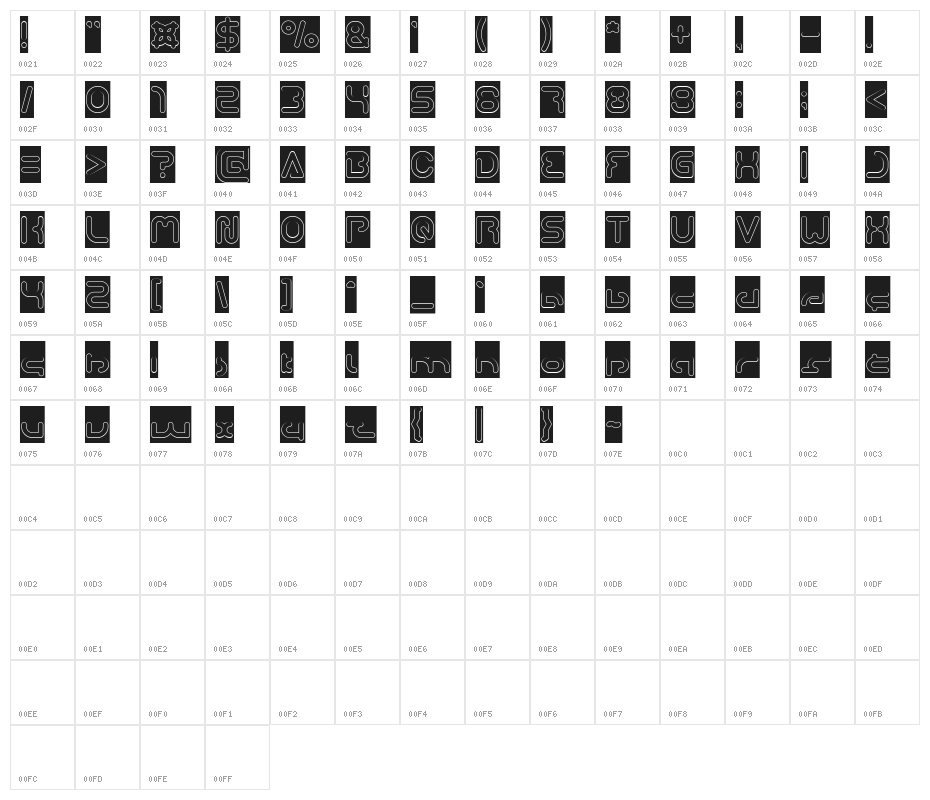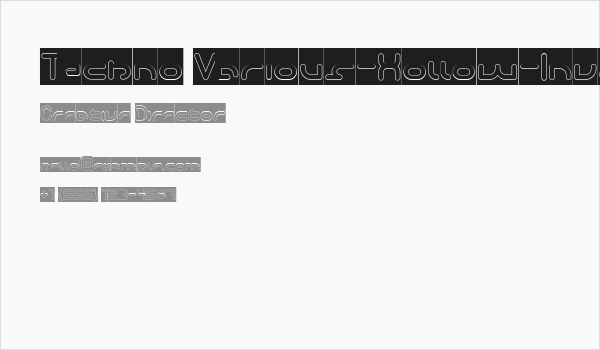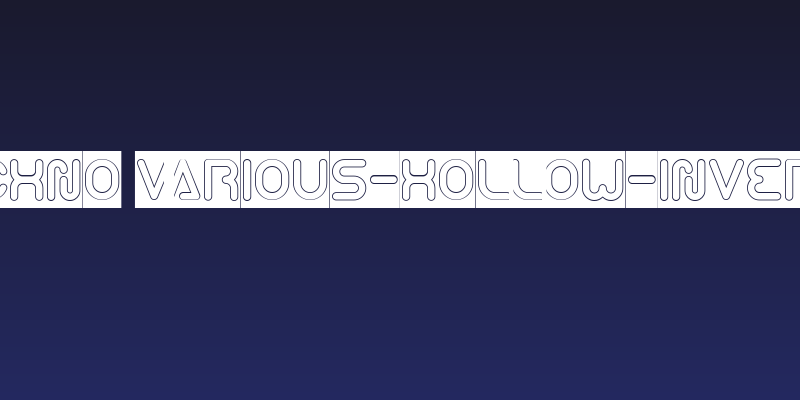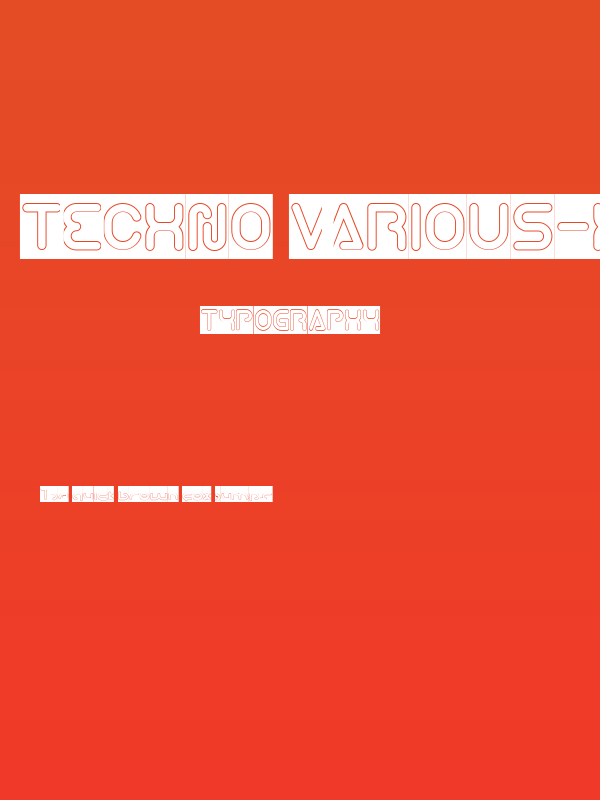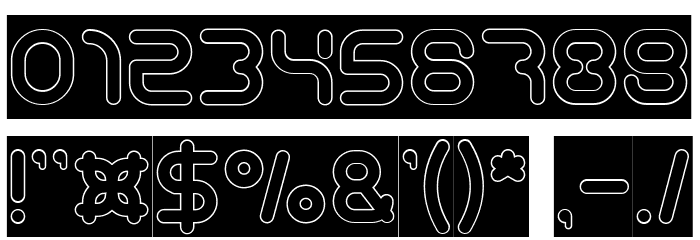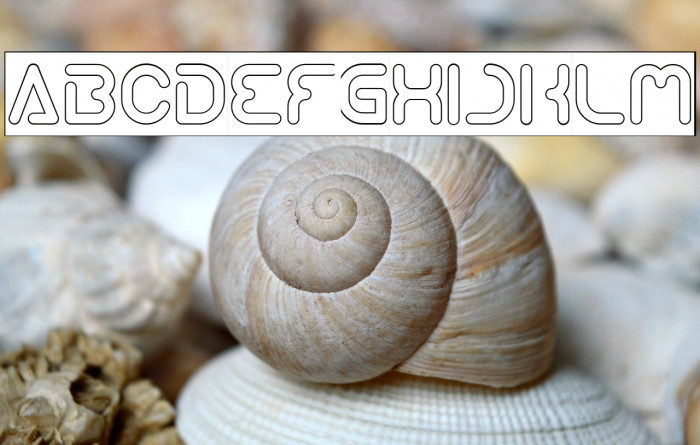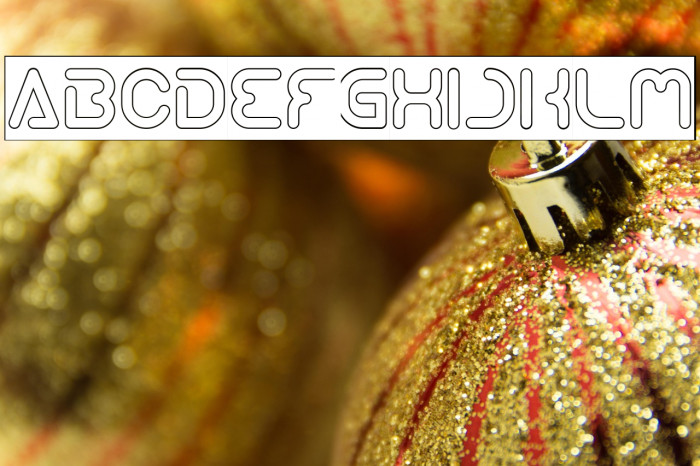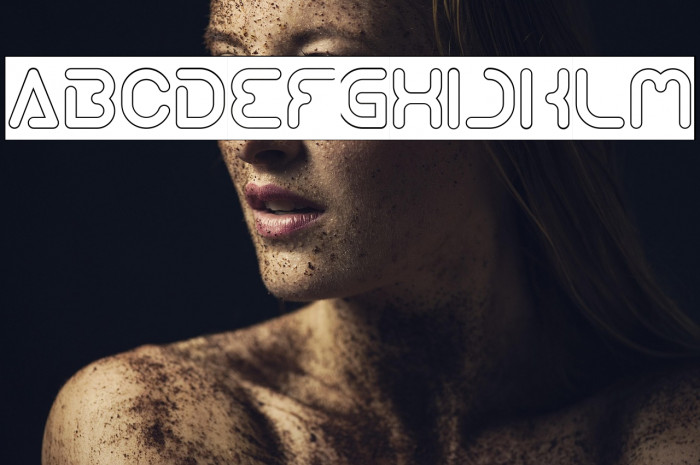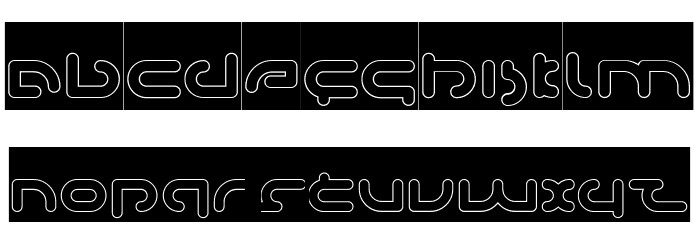
Techno Various-Hollow-Inverse Font
Techno Various-Hollow-Inverse Description
This font features a futuristic, hollow design with a distinct techno vibe. The characters are outlined, creating a striking visual effect that is both modern and eye-catching. The uppercase and lowercase letters maintain a consistent style, with rounded edges and geometric shapes. Numbers and special characters follow the same design principles, ensuring uniformity across all glyphs. The hollow nature of the font gives it a lightweight appearance, making it suitable for digital and print media where a contemporary look is desired.
| Proposed Projects | Ideal for technology-related branding, digital media, posters, and futuristic-themed projects. |